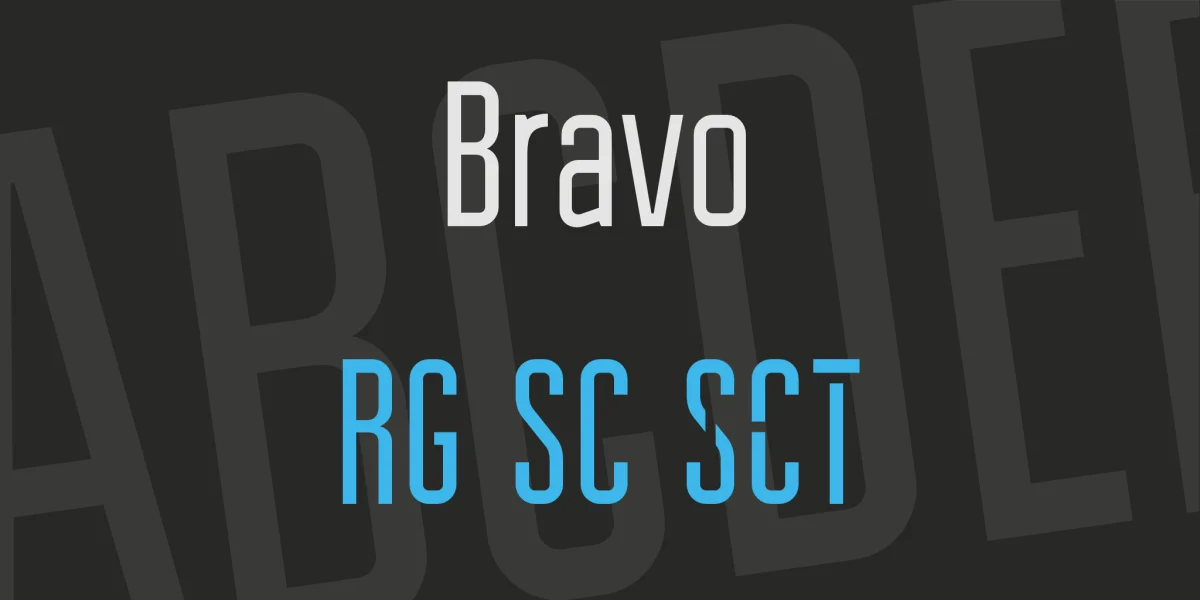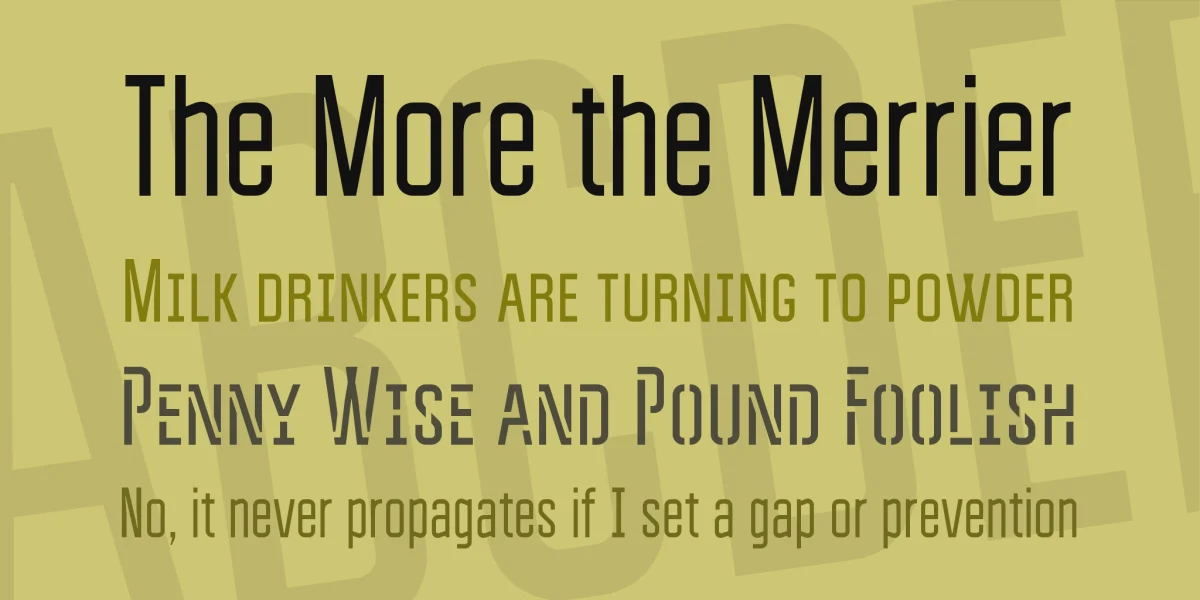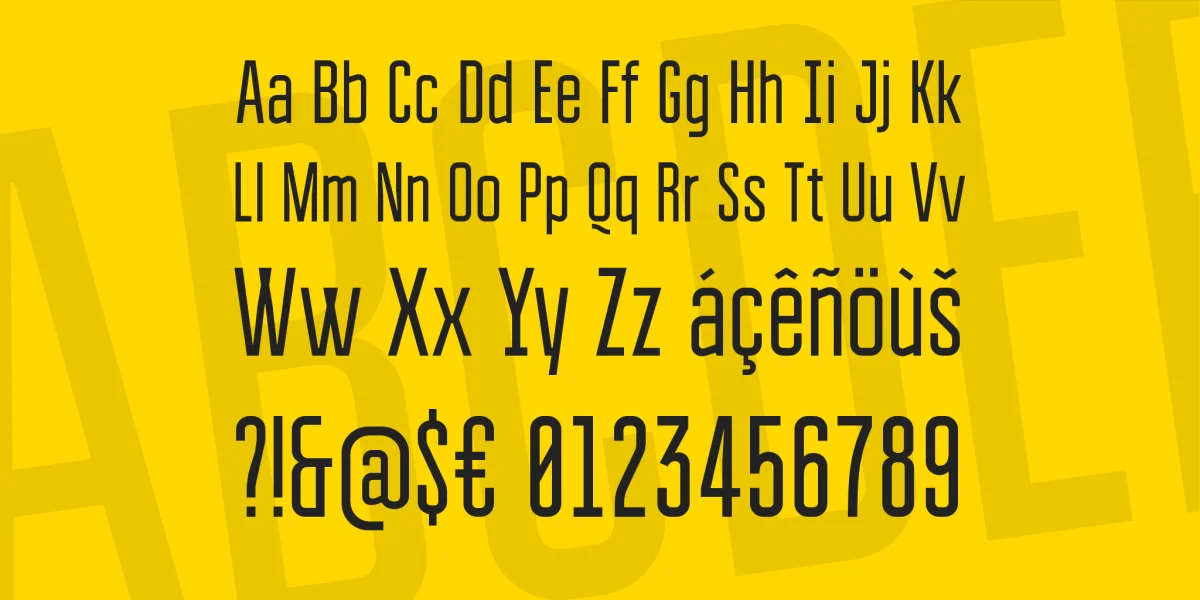
Font Bravo, this is a narrow accidental grotesque, which includes 3 tracings normal, small caps and screen. It contains more than 600 characters in each face. A variety of alternate glyphs, ordinals, ligatures help to make the text personality.